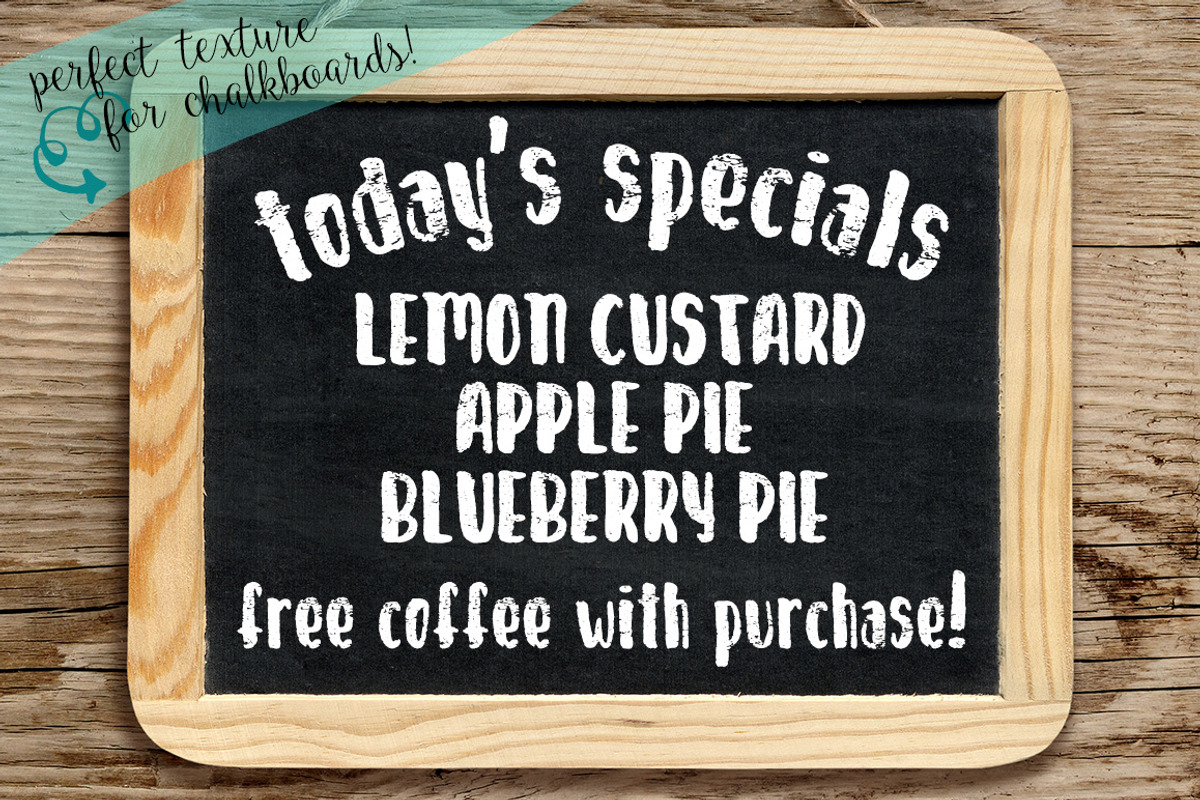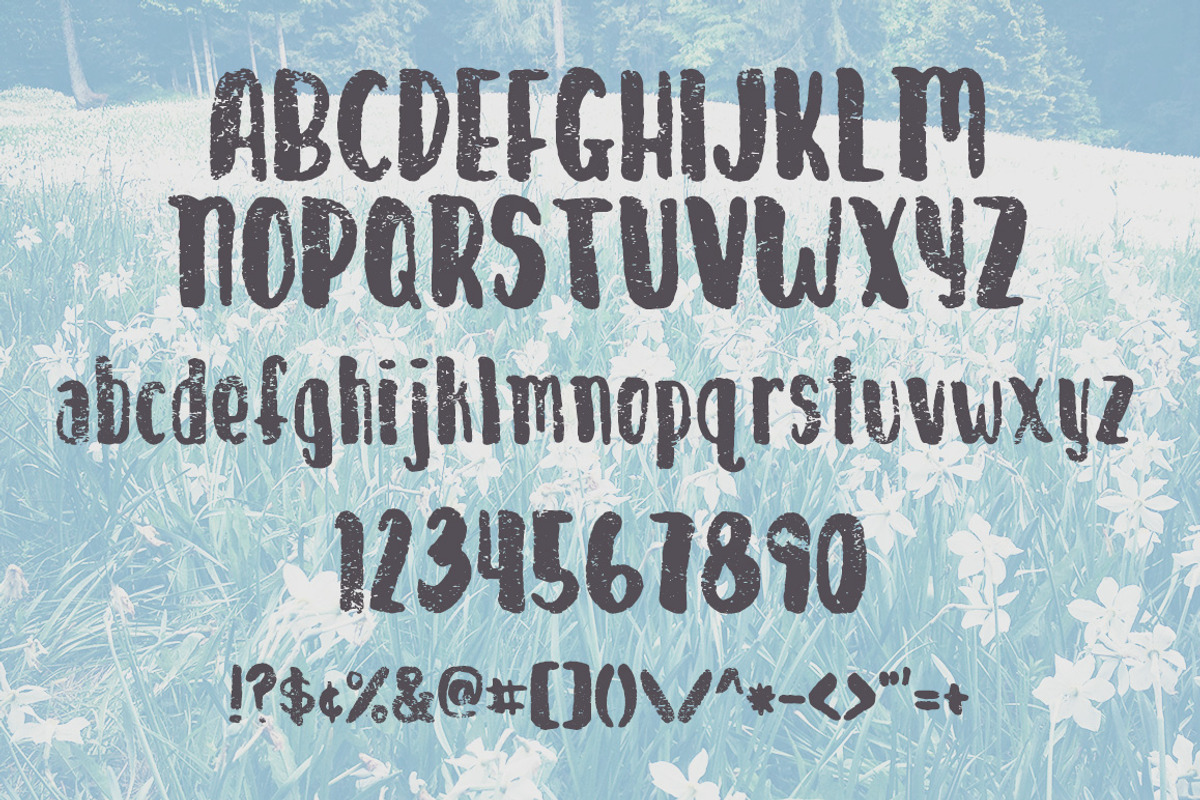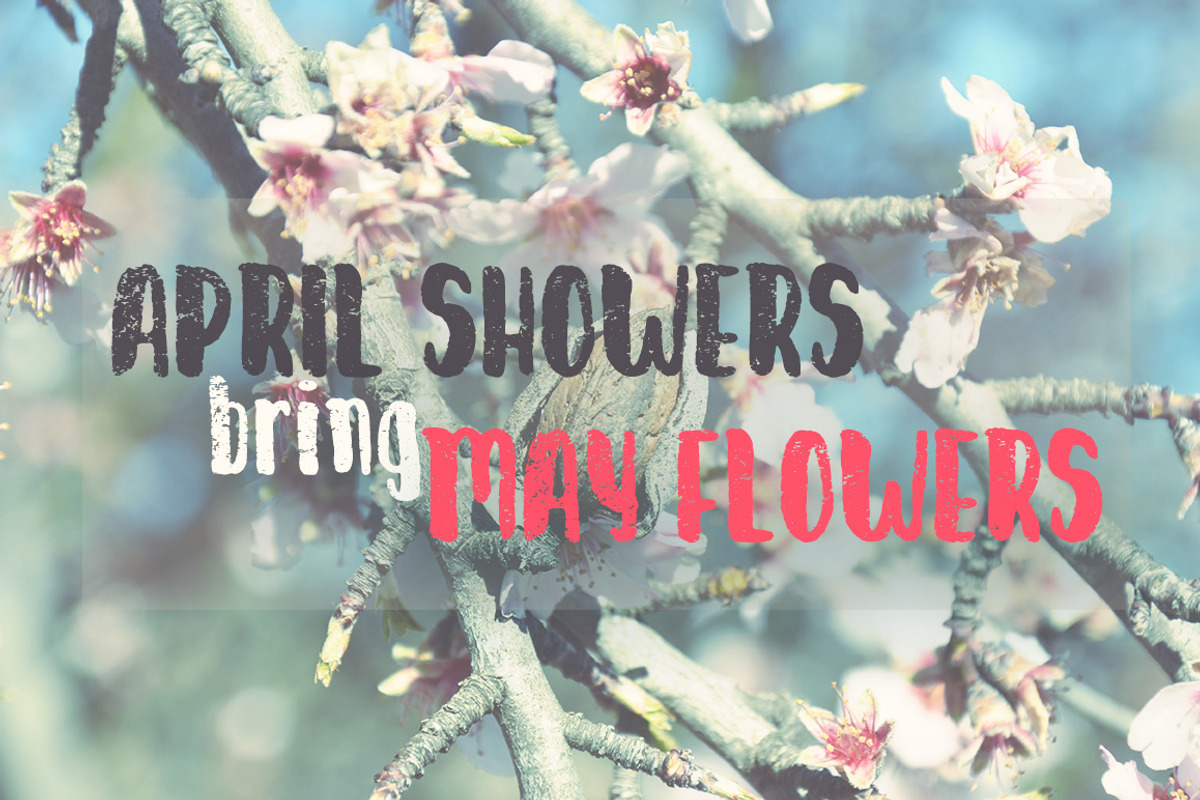
April Thaw Font
April Thaw Font by Jodi Van der Kruik is a font selected for branding, posters, packaging, typography.
- This new font contains both upper and lowercase so that you can combine to find your own perfect look.
Why April Thaw Font is worth a look
April Thaw Font by Jodi Van der Kruik fits naturally into Branding, posters, packaging, typography.